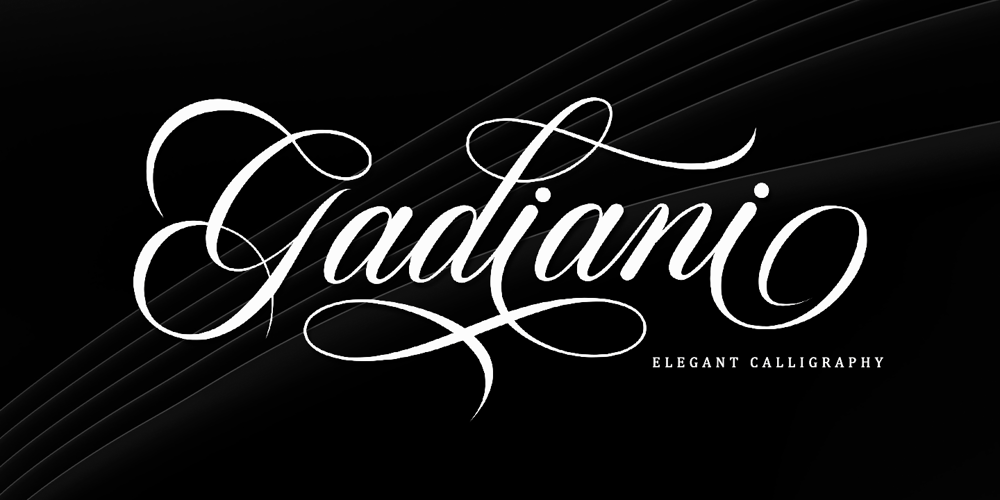
Gadiani Font Family was designed by Muhibbus Sabri and published by Queenop Studio. Gadiani contains 1 styles and family package options. Gadiani font is made into a nice and elegant font. Perfect for all your design projects, such as invitation cards, product logos, food brand logos, thank you cards, business card logos and more.Many alternatives will help you create whatever design you need like cute and girly handwritten letters and any other designs that require a beautiful handwritten touch! Enjoy :)Contains full set:-Uppercase-Lowercase-Alternative-Ligatures-Punctuation-Number-Multilingual support.Need help or have questions let me know. I’m happy to help.Thanks & Congratulations on the Design.